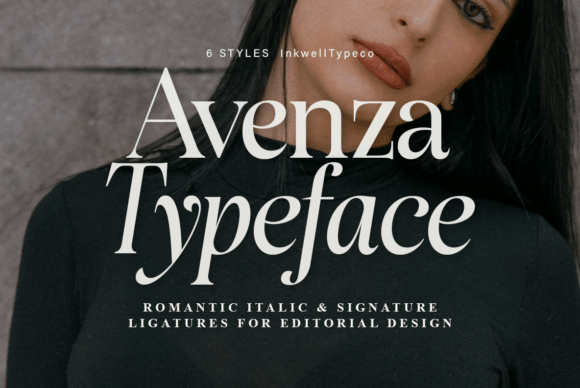
The Elegant Avenza Regular Font: A Designer’s New Best Friend
I still remember the design project that led me to discover the Avenza Regular Font. I was working on a luxury branding campaign for a high-end fashion client, and I was struggling to find the perfect font that exuded sophistication and elegance. The client wanted a font that would make their brand stand out, but still convey a sense of timelessness and refinement. After hours of searching, I stumbled upon Avenza, and it was love at first sight ✨.
- ✨ Elegant high-contrast serif design that’s perfect for editorial use, luxury branding, and refined typographic expression
- ✅ Sophisticated structure that blends traditional proportions with contemporary flair
- ✅ Sharp serifs, graceful curves, and a subtle calligraphic touch that adds personality to any design
- ✅ Six versatile styles to choose from, ensuring expressive typography while maintaining readability
While Avenza is an amazing font, there are a few things to keep in mind ⚠️:
- 🤔 The font’s high-contrast design may not be suitable for body text or small font sizes
- ⚠️ Some users may find the font’s calligraphic touch too ornate for certain design projects
The Story Behind Avenza
Avenza was designed with the goal of creating a font that would exude timeless elegance and sophistication. The designer’s inspiration came from traditional serif fonts, but with a modern twist. The result is a font that’s perfect for luxury branding, editorial use, and refined typographic expression.
| What is the Avenza font best used for? | Avenza is best used for luxury branding, editorial use, and refined typographic expression. |
| Is Avenza a script font? | No, Avenza is a serif font with a subtle calligraphic touch. |
| Can I use Avenza for body text? | While Avenza is a beautiful font, it’s recommended to use it for headlines and titles rather than body text. |